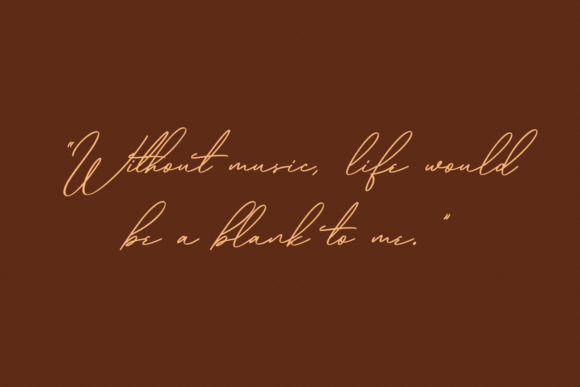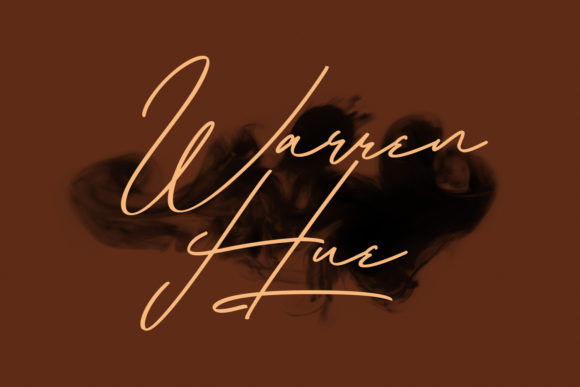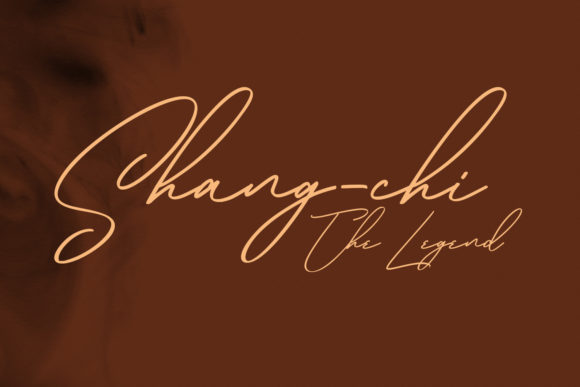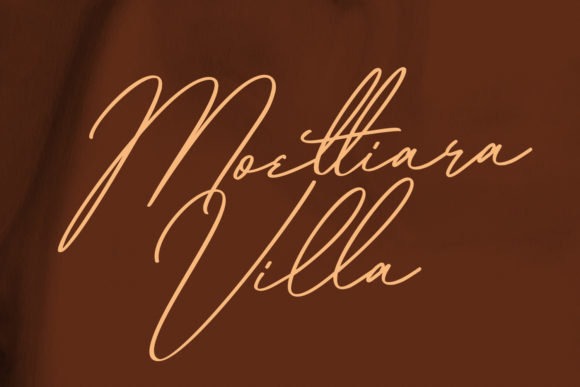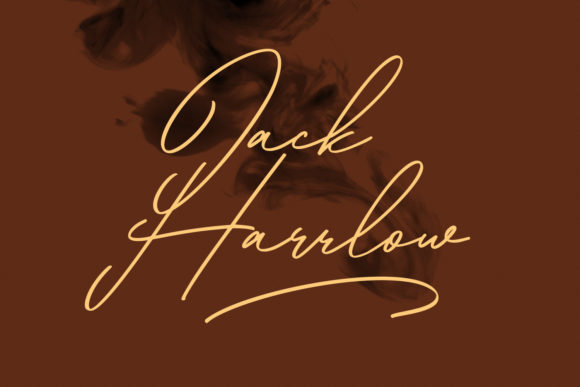
About Linestorys Font
Linestorys is a lovely and timeless handwritten font. It is the best choice for creating eye catching logos, branding and quotes. Every letter has a unique and beautiful touch, which will make your design come alive!